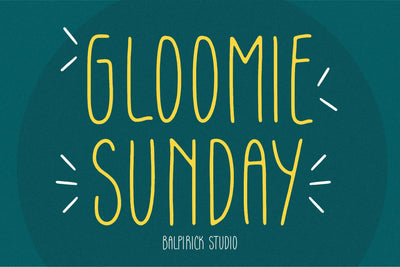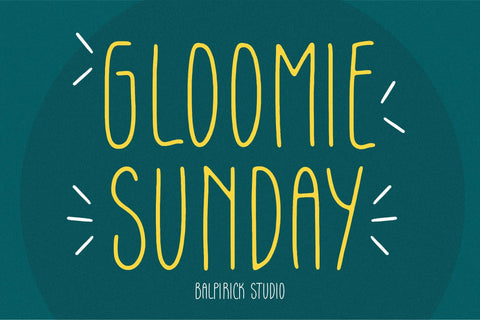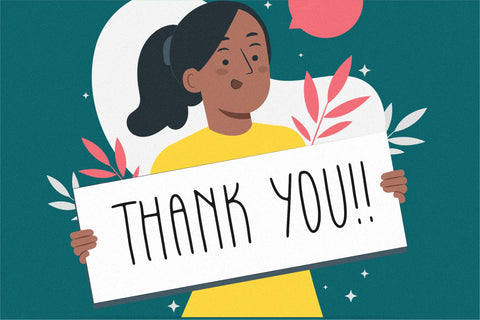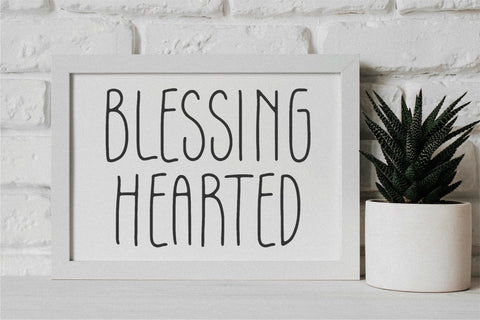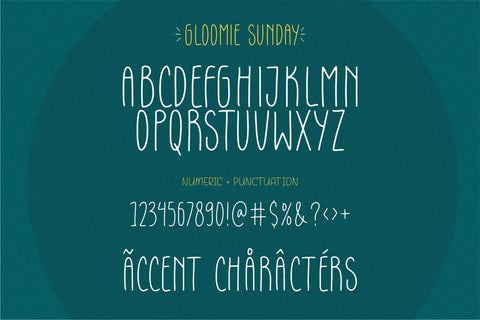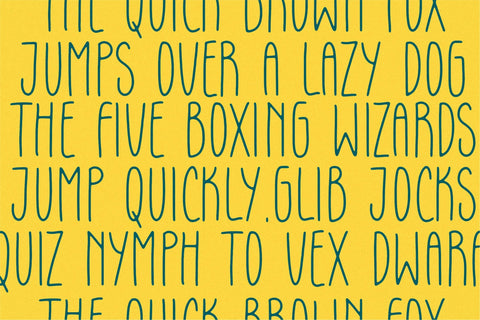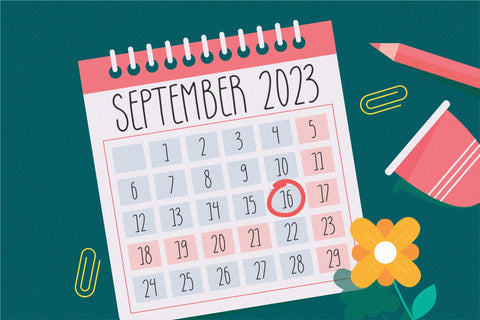
Gloomie Sunday Font
Gloomie Sunday is a Handwritten Font.
Whether you’re using it for crafts, digital design, presentations, or making greeting cards, this font has the potential to become your favorite go-to font, no matter the occasion!
This font only has allcaps letters.